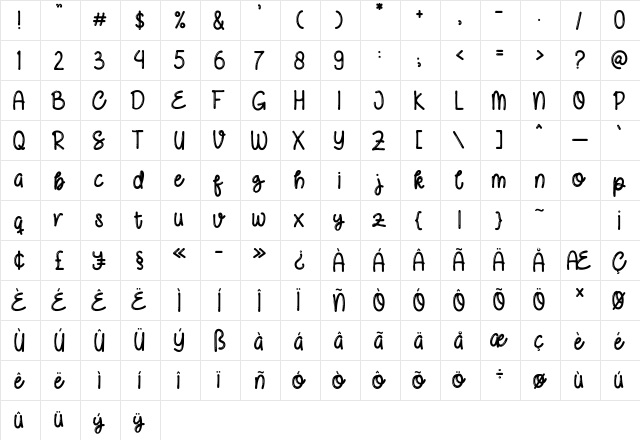
FUNCY KIDS! Regular
Design Context for FUNCY KIDS! Typeface
FUNCY KIDS! has an approachable, lighthearted character — its loose, expressive forms are well-suited to children's content, casual branding, and fun-first design.
Font Pairing: Pairs well with a rounded or humanist sans for body copy, maintaining the friendly tone without relying on FUNCY KIDS! to carry extended reading.
Pro Tip: Avoid using FUNCY KIDS! for long passages of text — it works best for headlines, labels, and short calls to action.